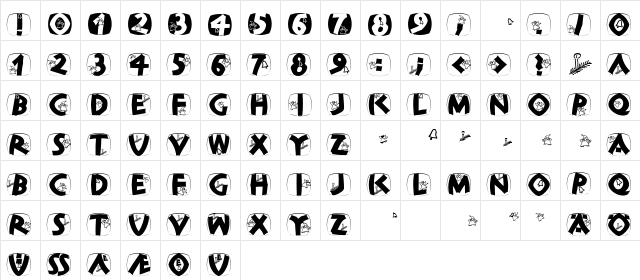
ClassiCapsXmas Regular
Design Context for ClassiCapsXmas Typeface
ClassiCapsXmas has the warm character of retro typography — evoking diners, record sleeves, and the golden age of print advertising.
Font Pairing: Combine ClassiCapsXmas with a simple slab or neutral sans — period-accurate companions reinforce the vintage feel without competing for attention.
Pro Tip: Lean into ClassiCapsXmas's period character by pairing it with aged paper textures, muted colour palettes, and vintage illustration styles.